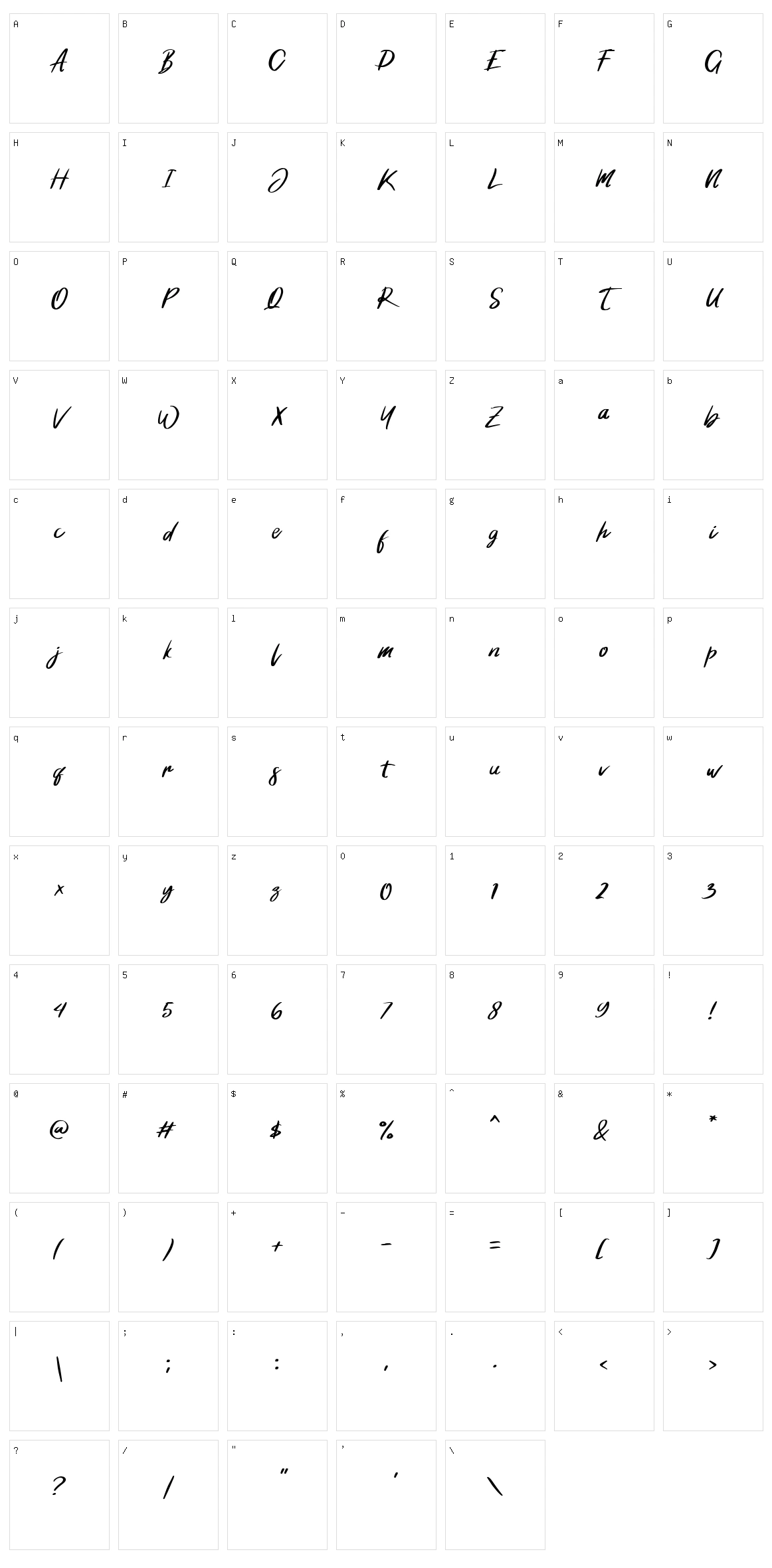
The free font Qonetha is carefully designed by Yosep Hendhry, showcasing a thoughtful balance of creativity and usability and falls under the Script font style. When you download the ZIP file, it contains only 280.23 KB of font files, making it lightweight and quick to download. Please review the license details below to understand permitted usage and distribution rights. If license information is not available, we recommend using this font for personal projects only or contacting the author directly for commercial usage permissions.